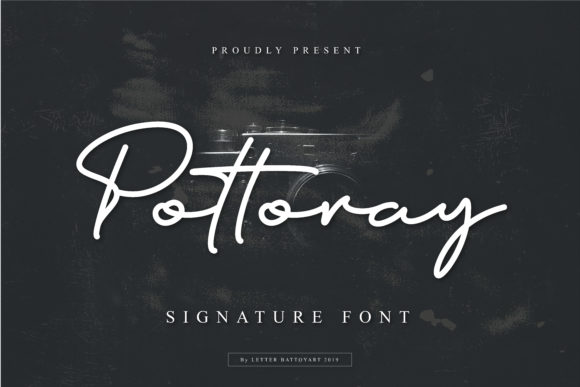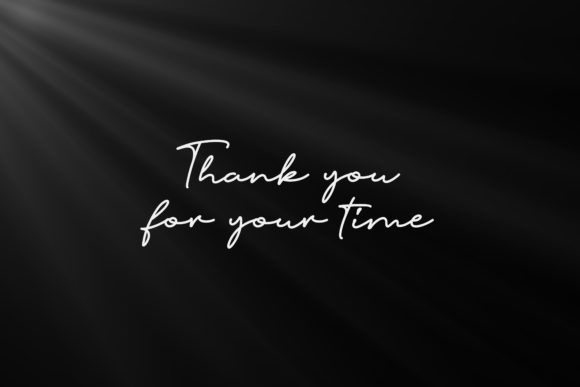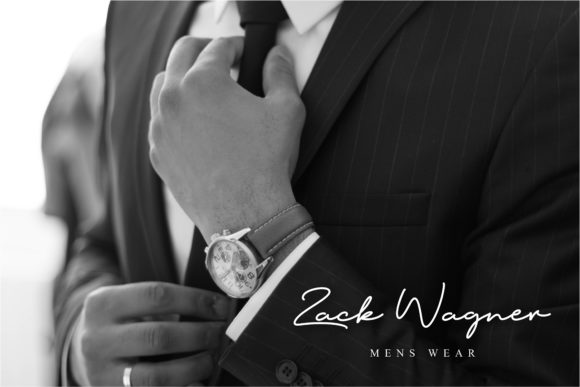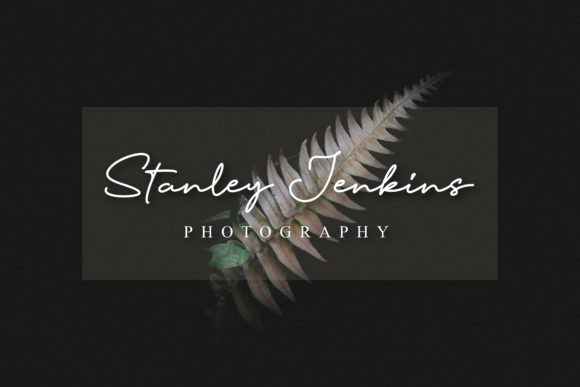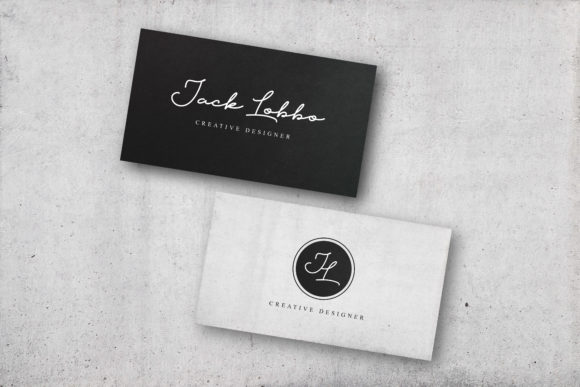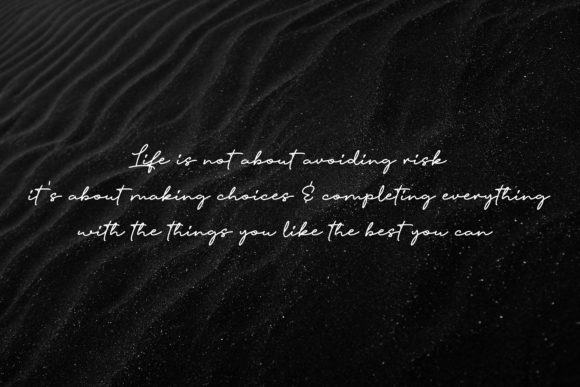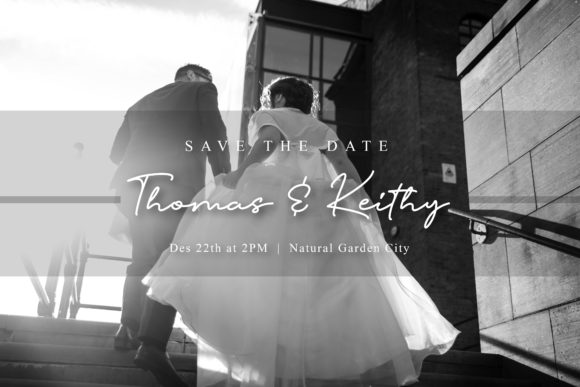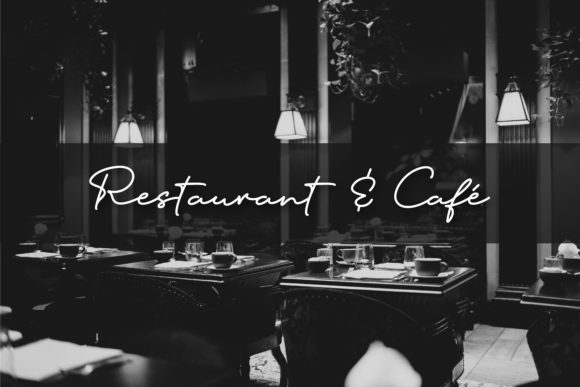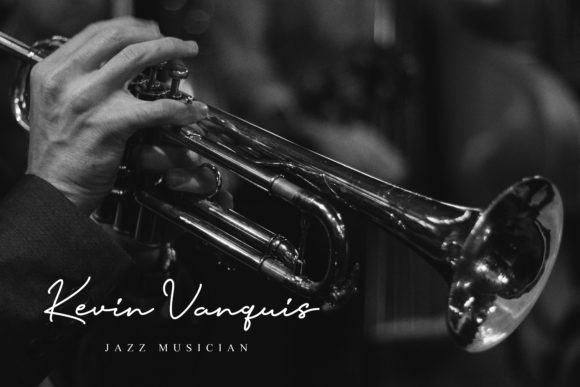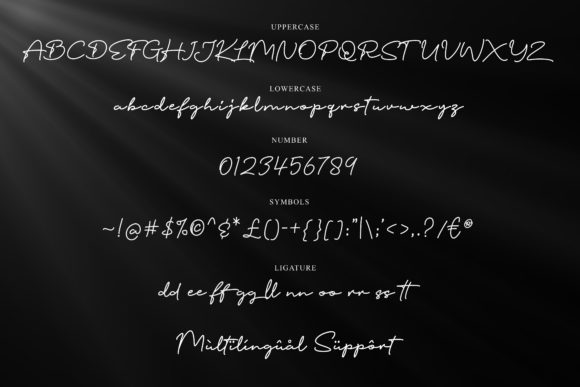
HomeScript FontsPottoray Font Script Fonts Pottoray Font FacebookTwitterPinterestWhatsApp Pottoray Font Poster 2 Pottoray Font Poster 3 Pottoray Font Poster 4 Pottoray Font Poster 5 Pottoray Font Poster 6 Pottoray Font Poster 7 Pottoray Font Poster 8 Pottoray Font Poster 9 Pottoray Font Poster 10 About Pottoray Font Pottoray is a modern and sleek script, with a unique feel. Fall in love with its contemporary elegance. DOWNLOAD NOW People also explored Marxistown Script Font Spooky Font Aesthetic Font Xiluman Font Gilliflower Font Canthonys Font Aletta Martta Font Astentish Font Natasia Font 143 0 TagsPottoray Font Previous articleAmazing Grace FontNext articleVrindals Script Font LEAVE A REPLY Cancel reply Comment: Please enter your comment! Name:* Please enter your name here Email:* You have entered an incorrect email address! Please enter your email address here Website: Save my name, email, and website in this browser for the next time I comment. Personal Use Free Concrete Wall Personal Use Free Read more about this font Baby Cute Personal Use Free Read more about this font New Amsterdam Personal Use Free Read more about this font Eric”s Personal Use Free Read more about this font BLOG Elegant Wedding Invitation Fonts – Handwritten & Script Fonts Elegant Wedding Invitation Fonts Your wedding day is one of the most important moments of your life, and every detail matters—including your invitation design. Our... The 10 Best Handwriting Fonts to Add Personality to Your Designs To increase your work productivity, choose the most readable fonts. Free vs Paid Fonts: Why Investing in Premium Fonts Is Worth It